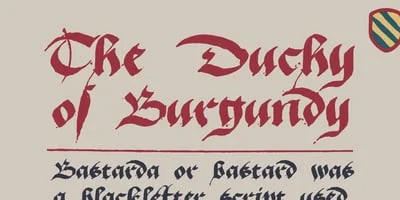
Duchy Of Burgundy Font
Duchy Of Burgundy Font is ideal for medieval history museums, Burgundian wine estates, European castle tours, Gothic art exhibitions, medieval manuscript reproductions, historical reenactment events, luxury wine branding, medieval studies programs, European heritage tourism, royal court celebrations, illuminated manuscript projects, and distinguished medieval cultural preservation communications.
This font is exciting because it embodies the courtly sophistication and political grandeur of the powerful Duchy of Burgundy that dominated 15th-century European politics and culture, featuring regally elegant letterforms that command attention with the same aristocratic authority and cultural refinement found in the magnificent Burgundian court where Philip the Good and Charles the Bold wielded influence that rivaled kings and fostered an unprecedented flowering of art, music, and intellectual achievement that made Burgundy the cultural center of Northern Europe. The majestically crafted character design reflects both the political power of Burgundian dukes and the artistic excellence of their court, creating typography that feels both historically authentic and regally impressive. Each letter bears the mark of ducal authority and cultural sophistication that transforms ordinary text into noble declarations worthy of Europe's most powerful and culturally influential medieval duchy.
The Duchy Of Burgundy Font family includes regular and bold weights with complete character sets featuring medieval numerals, noble punctuation marks, and decorative elements inspired by Burgundian heraldry, Gothic illuminated manuscripts, ducal seals, and medieval court documents. Advanced versions may offer additional stylistic variants with enhanced Gothic effects, alternate characters that reflect authentic medieval Burgundian lettering practices, and noble ornaments that celebrate the rich heritage of Burgundian political power and cultural achievement.
Whether you're developing medieval heritage branding, creating European historical materials, or designing noble cultural content, Duchy Of Burgundy Font provides the aristocratic authority and medieval sophistication your project needs to honor Burgundian heritage while appealing to audiences who appreciate the political intrigue and cultural achievements that made the Duchy of Burgundy one of medieval Europe's most powerful and influential states. This typeface transforms ordinary text into noble declarations that celebrate both Burgundian political legacy and the cultural flowering that made their court legendary. The font's ducal character makes it essential for institutions and projects that preserve medieval European heritage and noble traditions. Medieval history enthusiasts and European cultural preservationists will appreciate how this font brings authentic Burgundian noble tradition to their work with its genuinely aristocratic and historically magnificent character that rules with cultural authority.